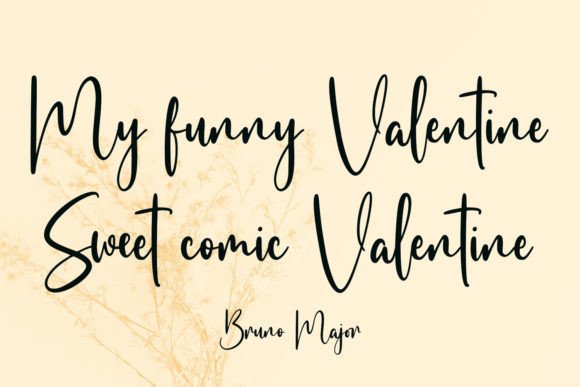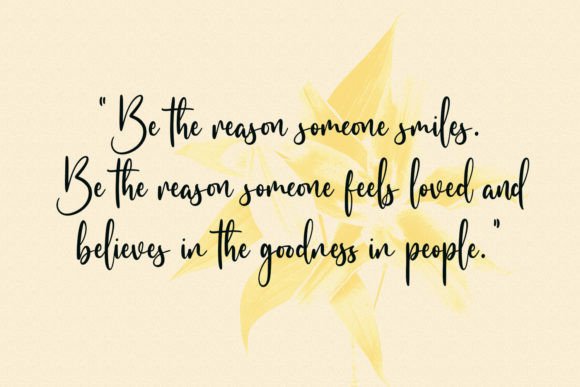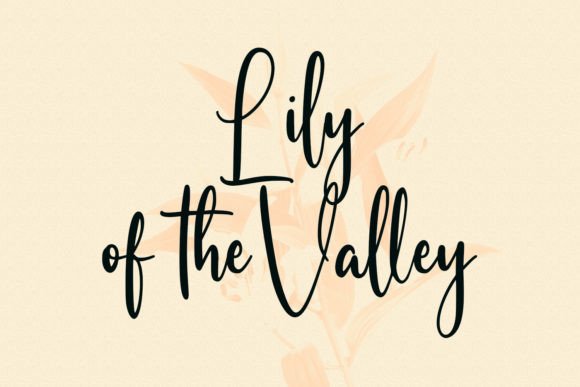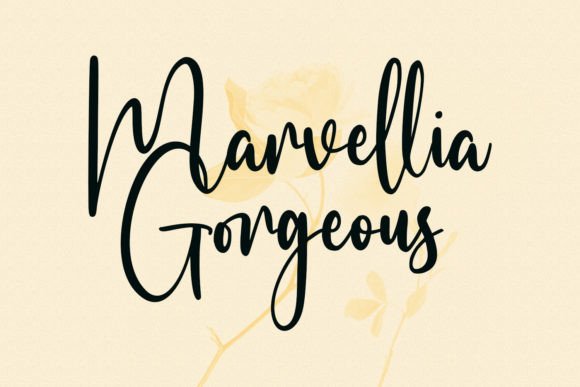
About Sollesty Font
“Sollesty” is a modern signature script font that has been meticulously crafted to exude a touch of elegance. This font is a versatile choice, suitable for a wide range of design applications, whether you’re looking for fonts for social media graphics or calligraphy scripts for DIY projects. “Sollesty” can elevate your creative ideas, turning them into true pieces of art.
The font’s signature script style is characterized by its flowing and graceful characters. It’s well-suited for projects that require a touch of sophistication and creativity. “Sollesty” can add a sense of elegance and personalization to your designs, making them engaging and memorable.
In the world of design, fonts play a significant role in setting the mood and visual identity of a project. “Sollesty” excels in these aspects by offering a signature script font that is both modern and visually captivating. Its aesthetics infuse your designs with a sense of elegance and artistry, making them stand out and leave a lasting impression.
In summary, “Sollesty” is more than just a font; it’s a modern and elegant design tool that can enhance your creative projects with its flowing and sophisticated style. Whether you’re a professional designer or a DIY enthusiast, “Sollesty” is the font that can help you craft designs that are both visually stunning and artistically compelling, turning your creative ideas into true works of art.